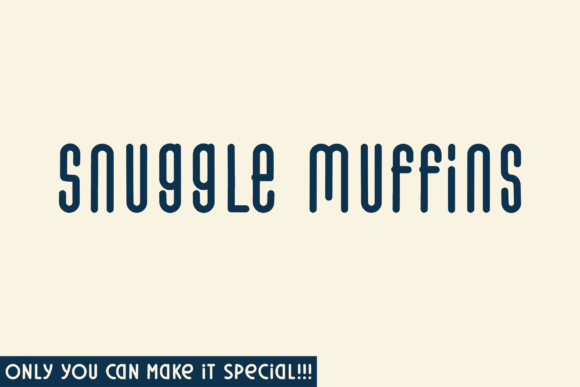
Discover Snuggle Muffins Font, the ultimate sans serif font family that captures the essence of nostalgia and delivers an awe-inspiring vintage aesthetic. Unleash your creativity and immerse yourself in a world of retro charm.
Crafted by the talented Hanna Bie, Snuggle Muffins Font is not just a font; it's a journey through time. The playful curves and delicate strokes evoke a sense of longing for a simpler era. Use this captivating font to add a touch of whimsy and timeless elegance to your designs.
Whether you're a seasoned designer or just starting out, Snuggle Muffins Font is the perfect choice for adding a unique and eye-catching touch to your projects. Its effortless charm will instantly elevate your logos, branding, packaging, and any other creative project you can imagine.
With Snuggle Muffins Font, you'll embark on a creative adventure, exploring the depths of vintage aesthetics and leaving a lasting impression on your audience. Each character is meticulously designed to evoke a sense of nostalgia, making your designs truly unforgettable.
So, dive into the world of Snuggle Muffins Font and let your creativity soar. Embrace the beauty of the past and bring a touch of vintage magic to your designs. The possibilities are endless, and the journey is yours to explore. Don't miss out on this enchanting font that will transform your designs into timeless masterpieces.